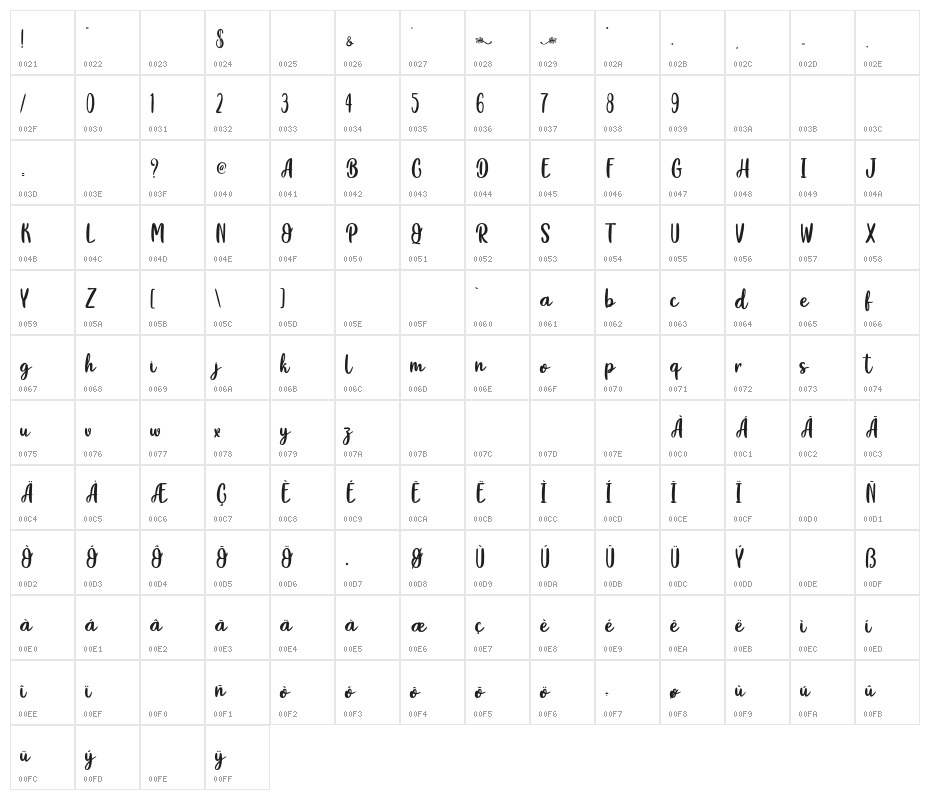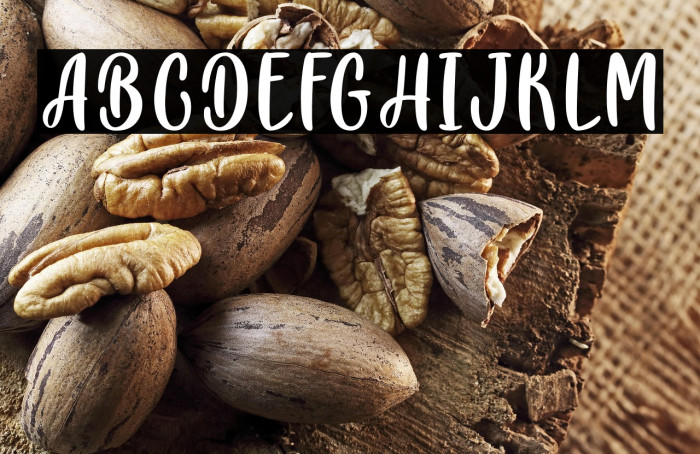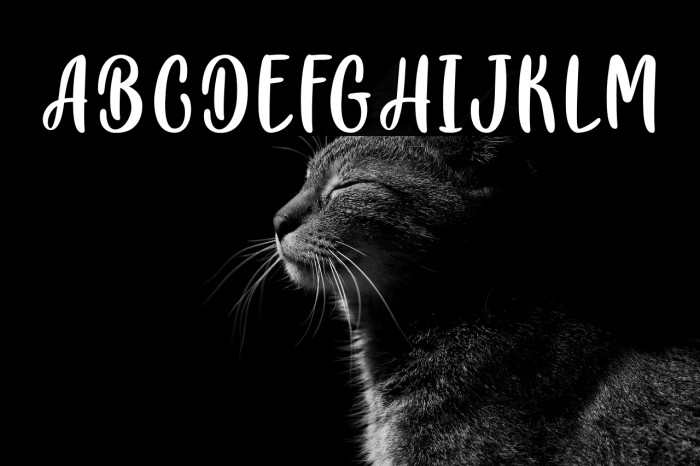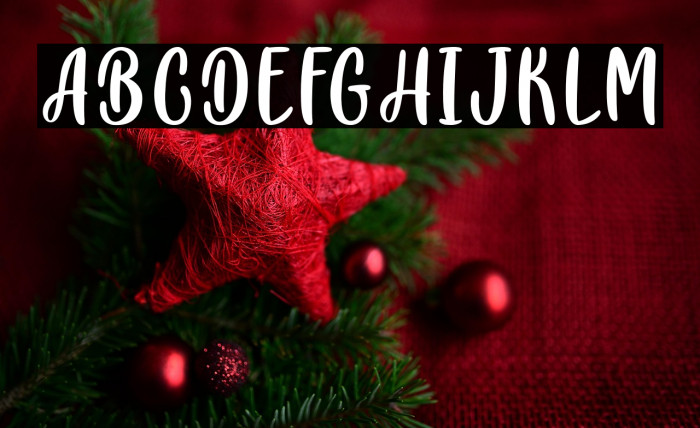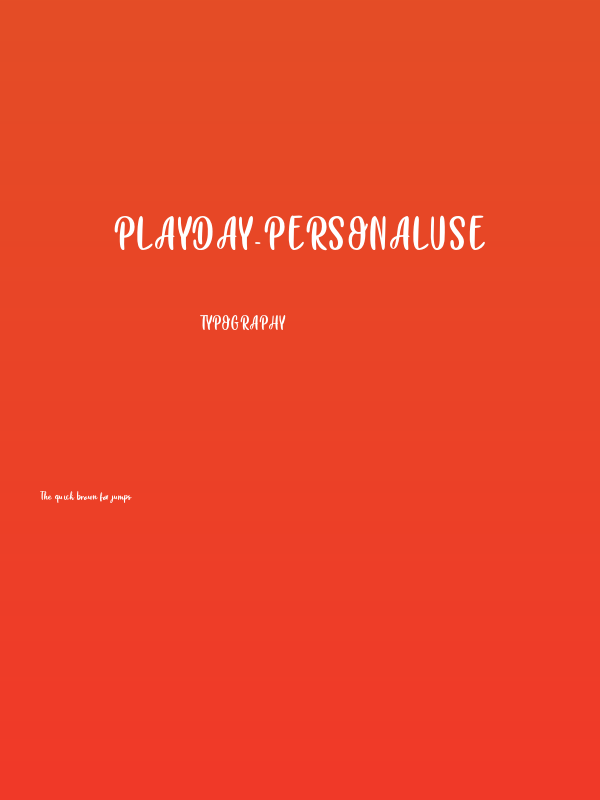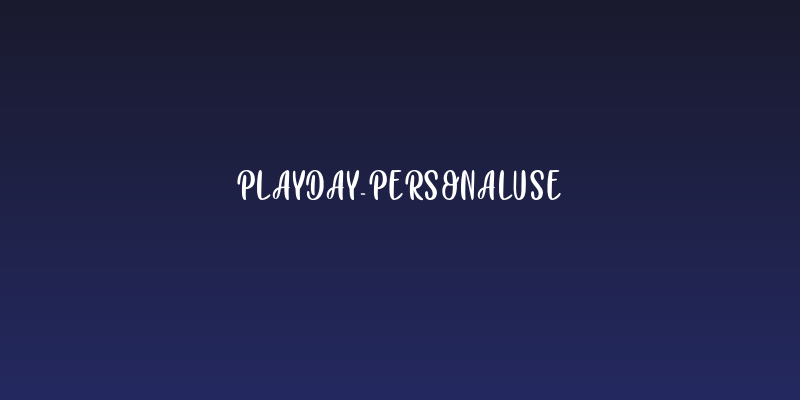
PlayDay-PersonalUse Font
PlayDay-PersonalUse Description
This playful and whimsical font features a handwritten style with a smooth, flowing appearance. The uppercase letters are bold and rounded, giving a friendly and approachable feel. The lowercase letters maintain a consistent style, with some characters extending below the baseline, adding to the casual and relaxed vibe. Numbers are clear and easy to read, matching the overall aesthetic. Special characters are creatively designed, incorporating decorative elements that enhance the font's charm. This font is perfect for projects that require a personal touch, such as invitations, greeting cards, or playful branding.